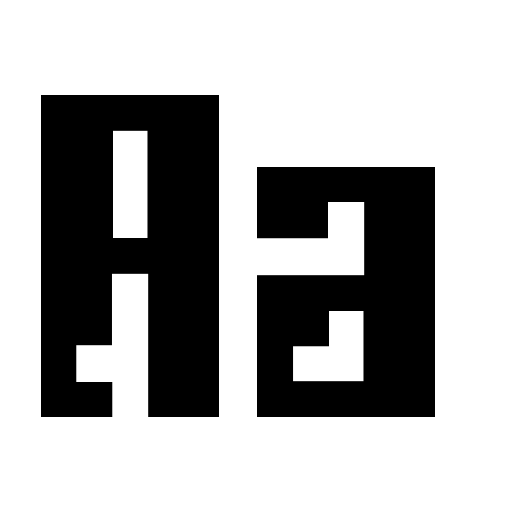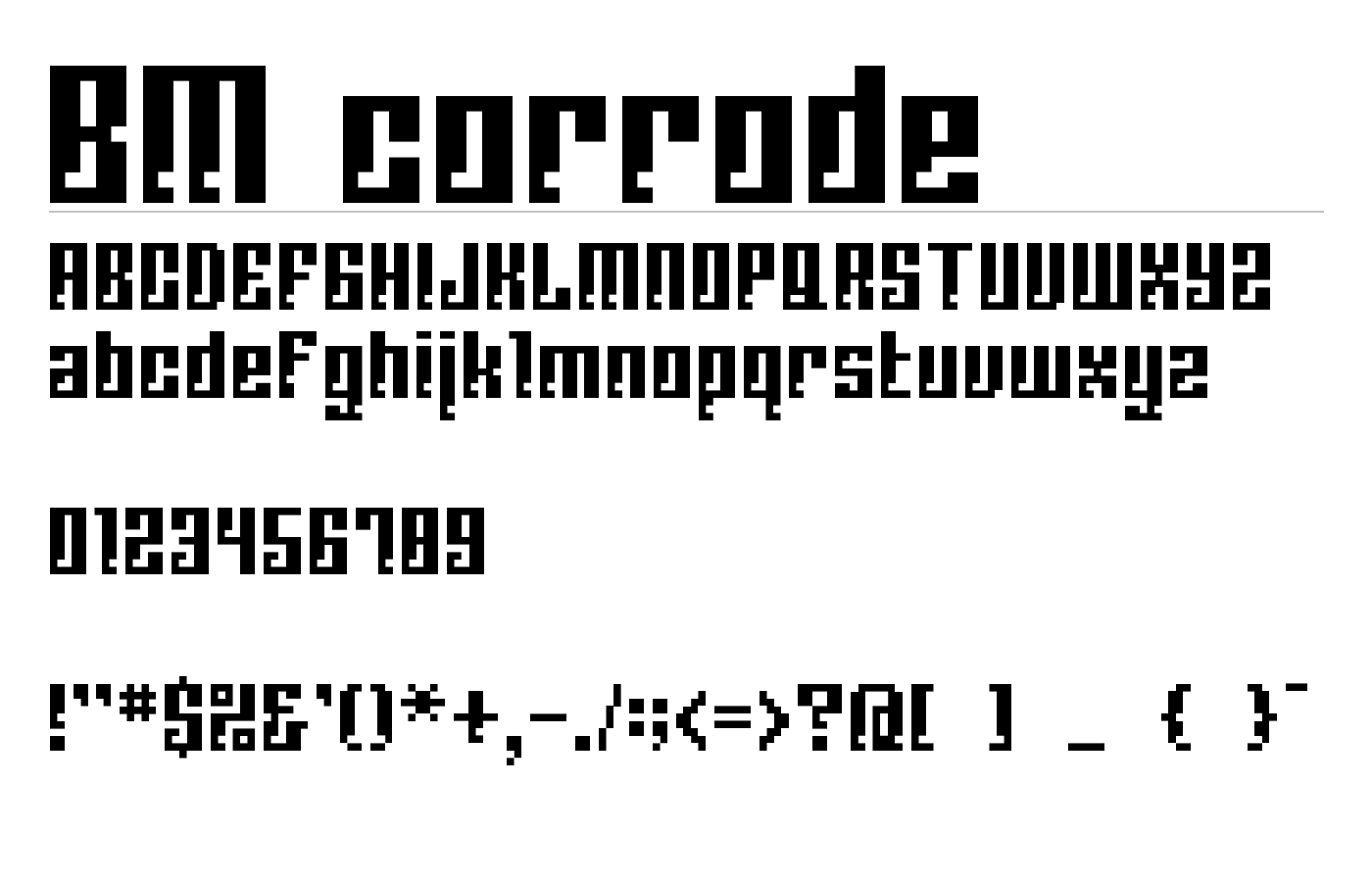
BM Corrode is a bold, condensed sans serif font with a distinct pixelated, blocky style that evokes a digital or retro game aesthetic. Its rigid, geometric letterforms and uniform stroke weight give it a modern yet gritty personality, making it ideal for edgy, tech-inspired designs such as video game titles, posters, or digital branding. This font stands out best in headlines or display use where its unique pixel-art charm can shine.
BM corrode Font
About BM corrode Font